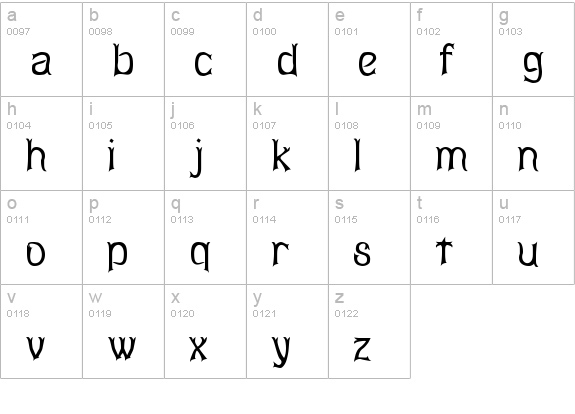
Abagail Regular Font Details
Abagail Regular is the standard, neutral variant in the Abagail typeface family \xE2\x80\x94 well suited to general body text, paragraphs, and standard typographic work.
Abagail Regular font is a versatile and stylish typeface that exudes elegance and sophistication. Its clean lines and balanced proportions make it perfect for a wide range of design projects, from branding to editorial layouts. The classic yet modern design of Abagail Regular font lends a timeless quality to any text it graces, making it a popular choice among designers and creatives. What makes Abagail Regular font even more appealing is that it is available for free download at FontsMarket.com. This means that you can easily access this high-quality font without any cost, making it a valuable addition to your font library. Whether you are working on a personal project or a client's design, Abagail Regular font is sure to elevate your work with its refined aesthetic and exceptional legibility. Download it today and add a touch of sophistication to your next project.